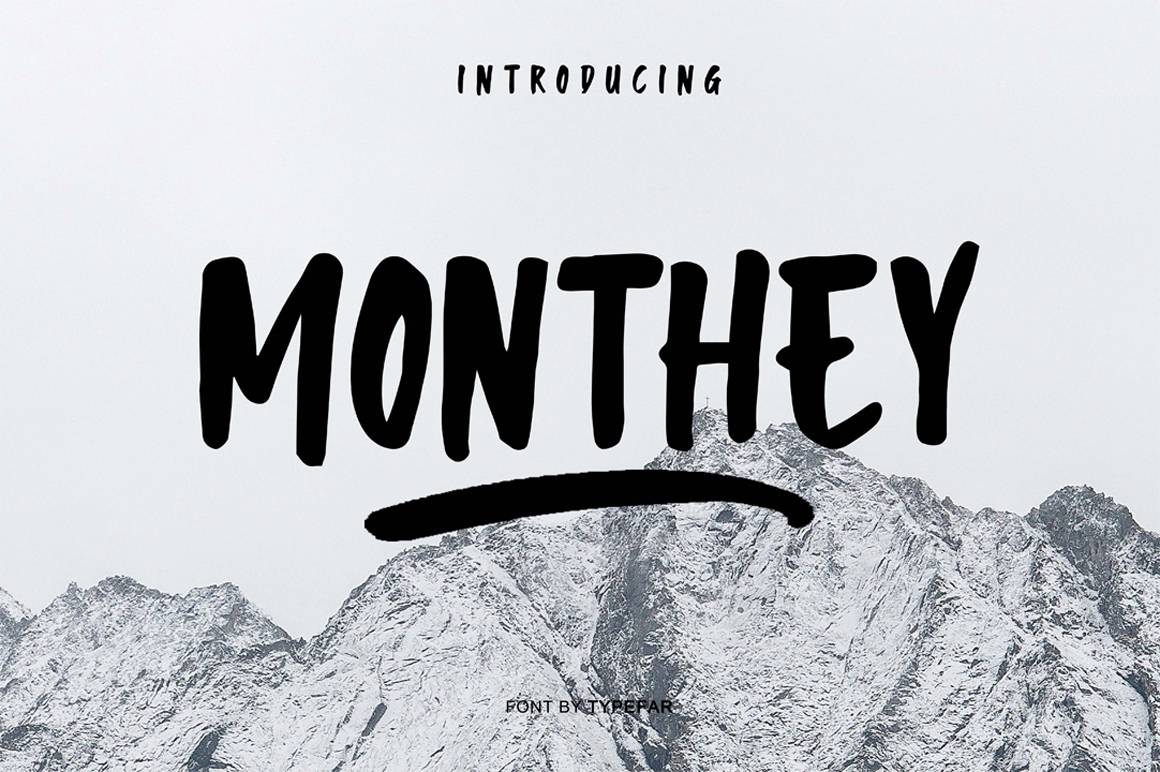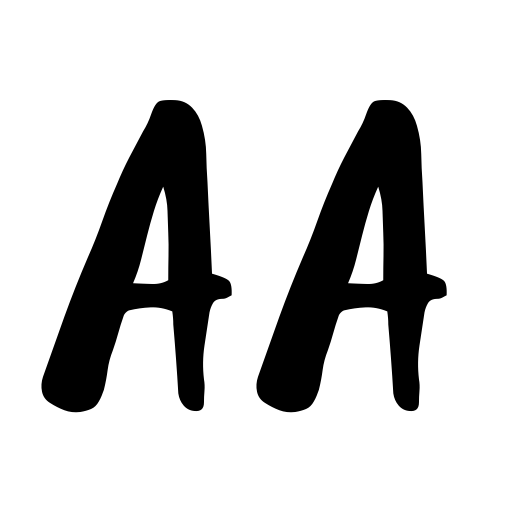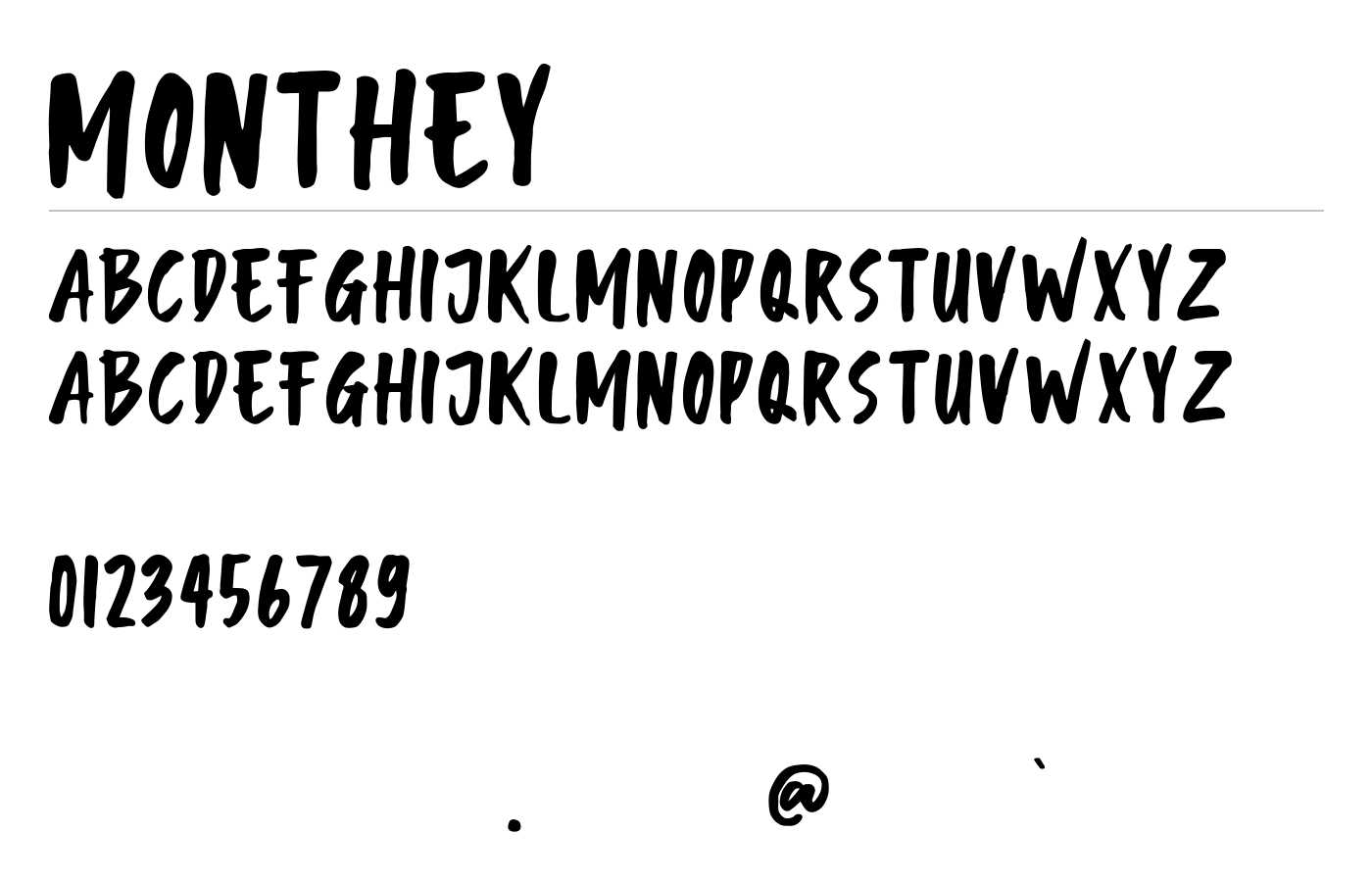
Monthey Brush Font is a bold, playful brush script with a lively, hand-painted feel. Its tall, slightly condensed uppercase letters and casual strokes bring a friendly and approachable character, making it perfect for creative branding, posters, and informal designs that want to convey energy and personality. This font works well where a natural, artistic touch is needed without sacrificing readability.
Monthey Brush Font
About Monthey Brush Font
| Font family | Monthey Brush Font |
| Designer | Farul Arjianto |